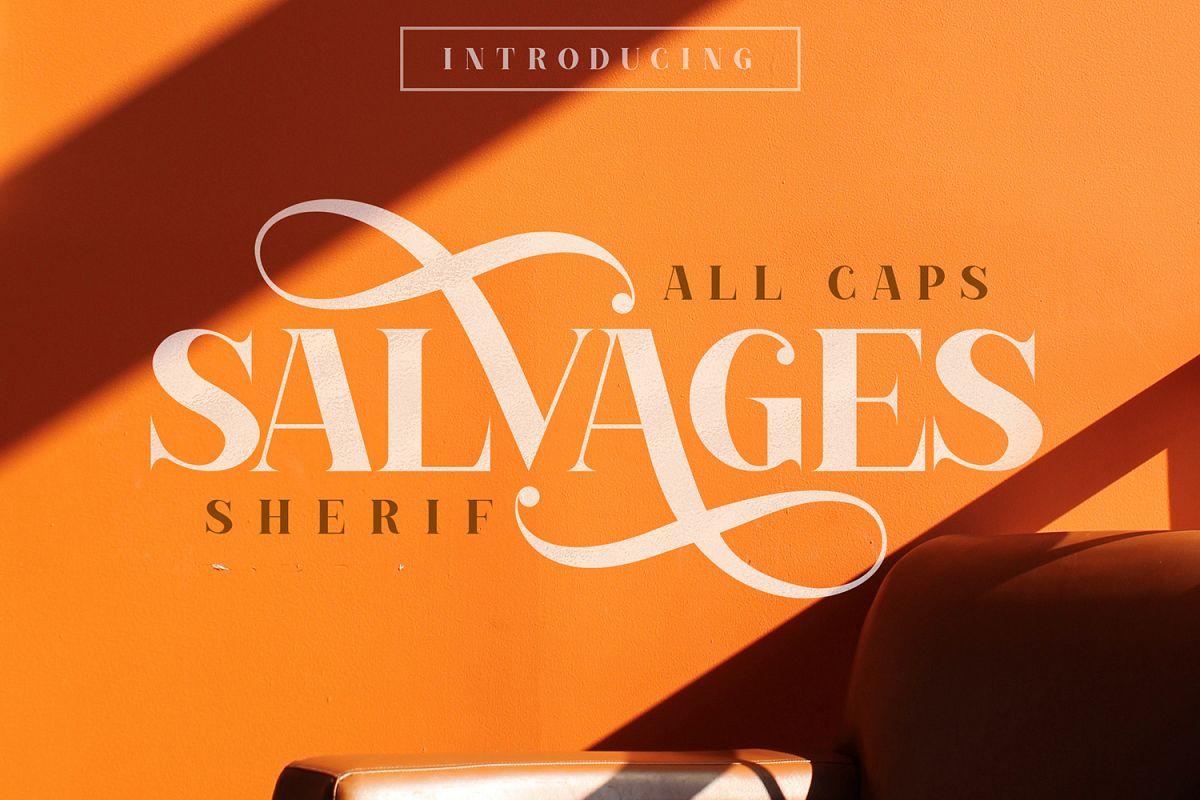
SALVAGES BOLD | SERIF FONT
SALVAGES BOLD SERIF is an elegant font, perfect for logo design, branding, clothing design, signage, posters, wedding invitations and so much more! Also many more alternative characters. ALL IS CAPS SERIF.